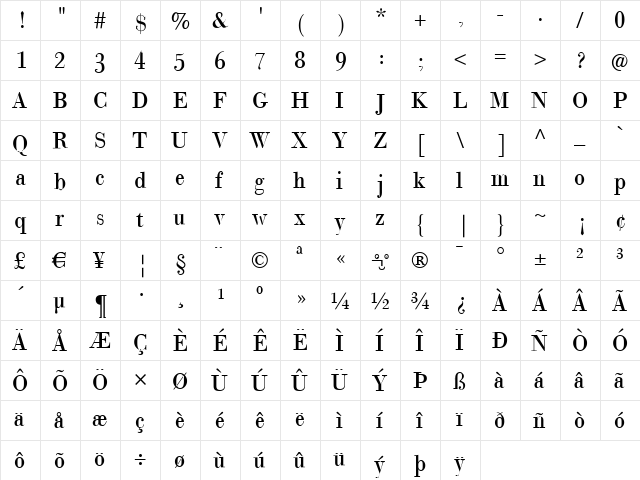
GiambattistaVsPetit Regular Font Preview
GiambattistaVsPetit Regular
Design Context for GiambattistaVsPetit Typeface
GiambattistaVsPetit is a composed and adaptable typeface that performs quietly and consistently across a wide range of design contexts.